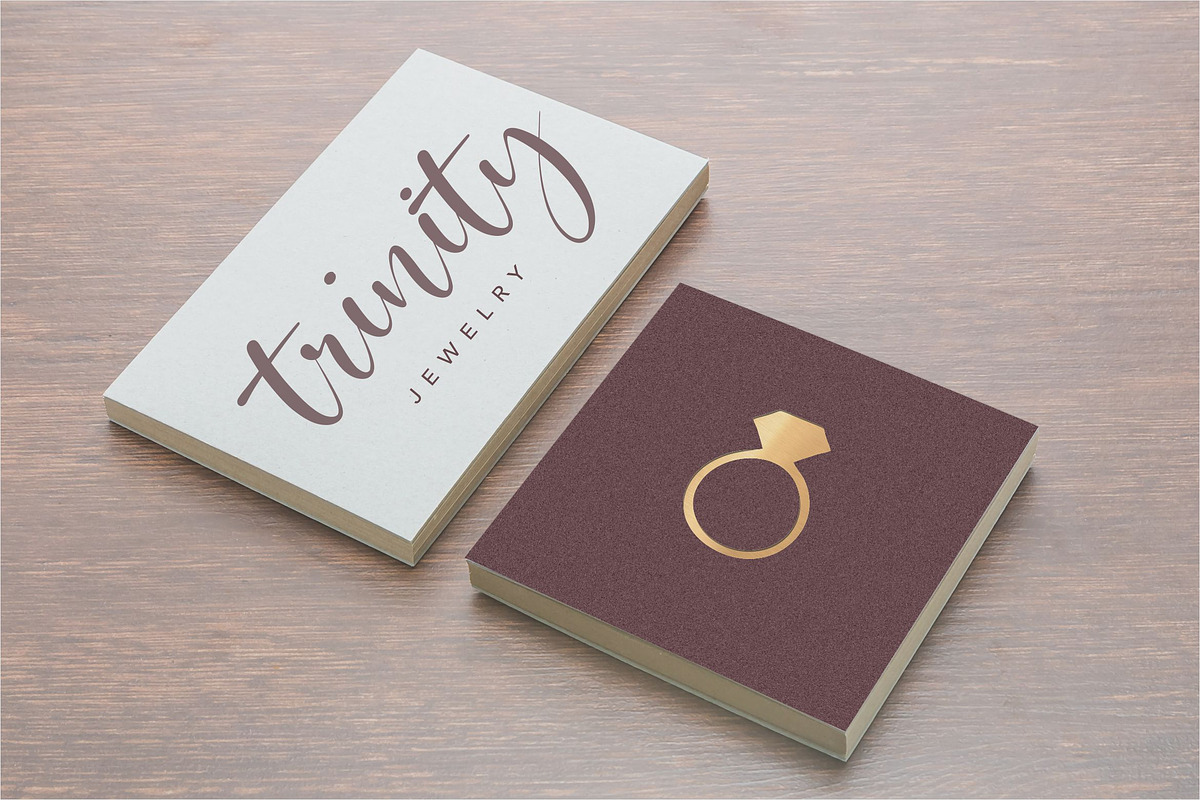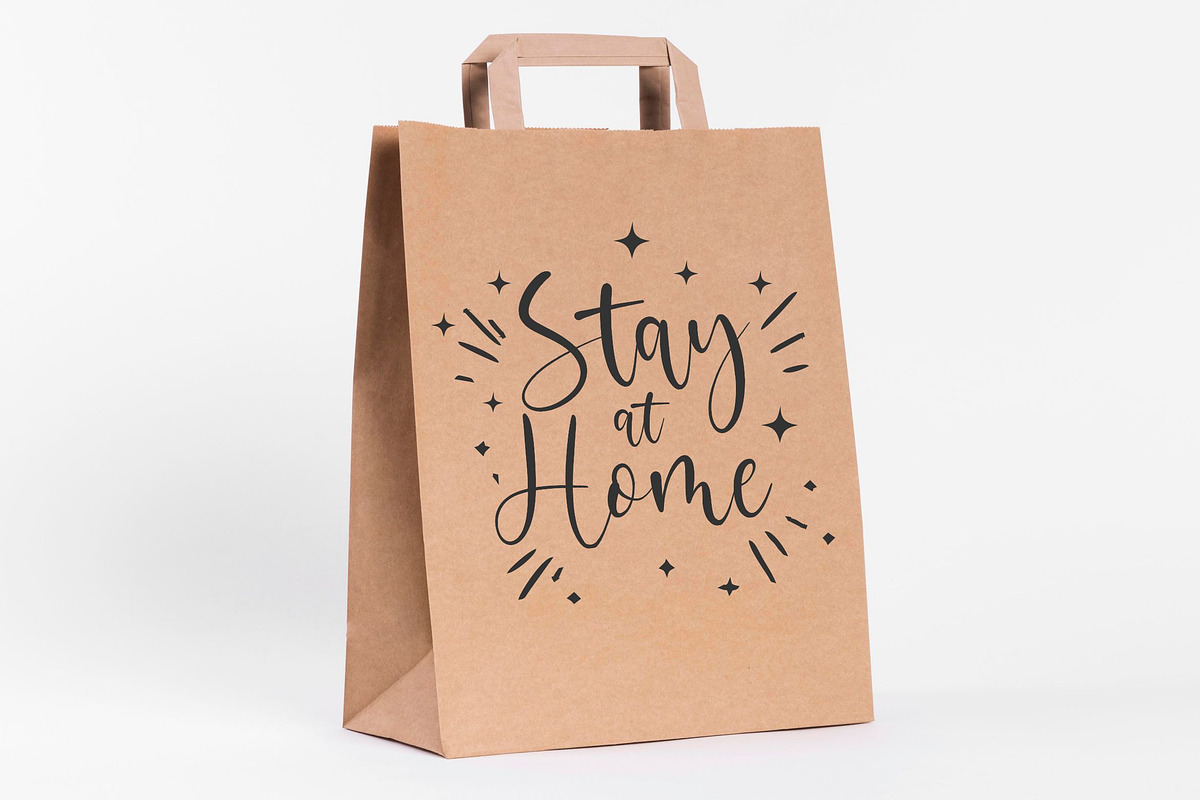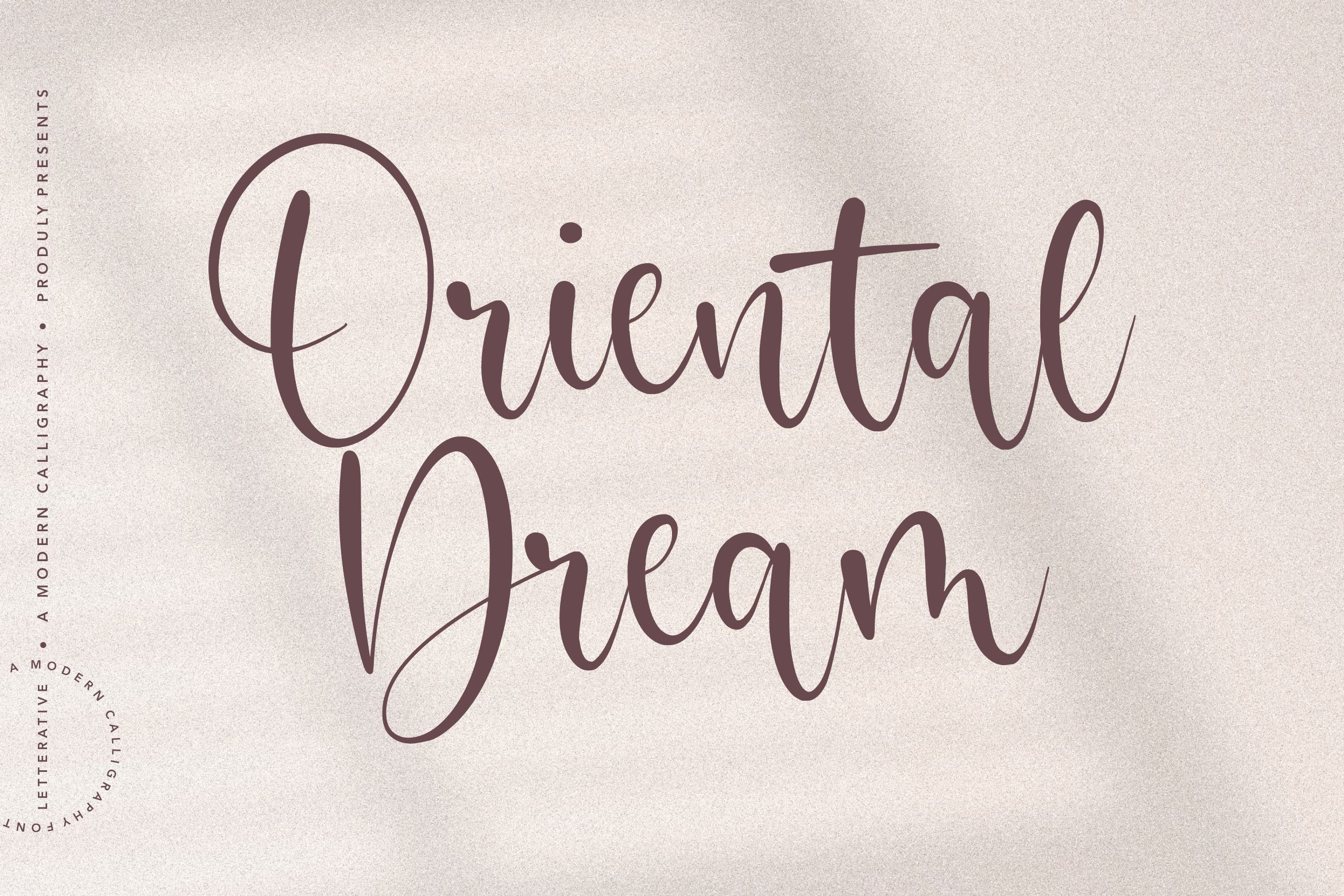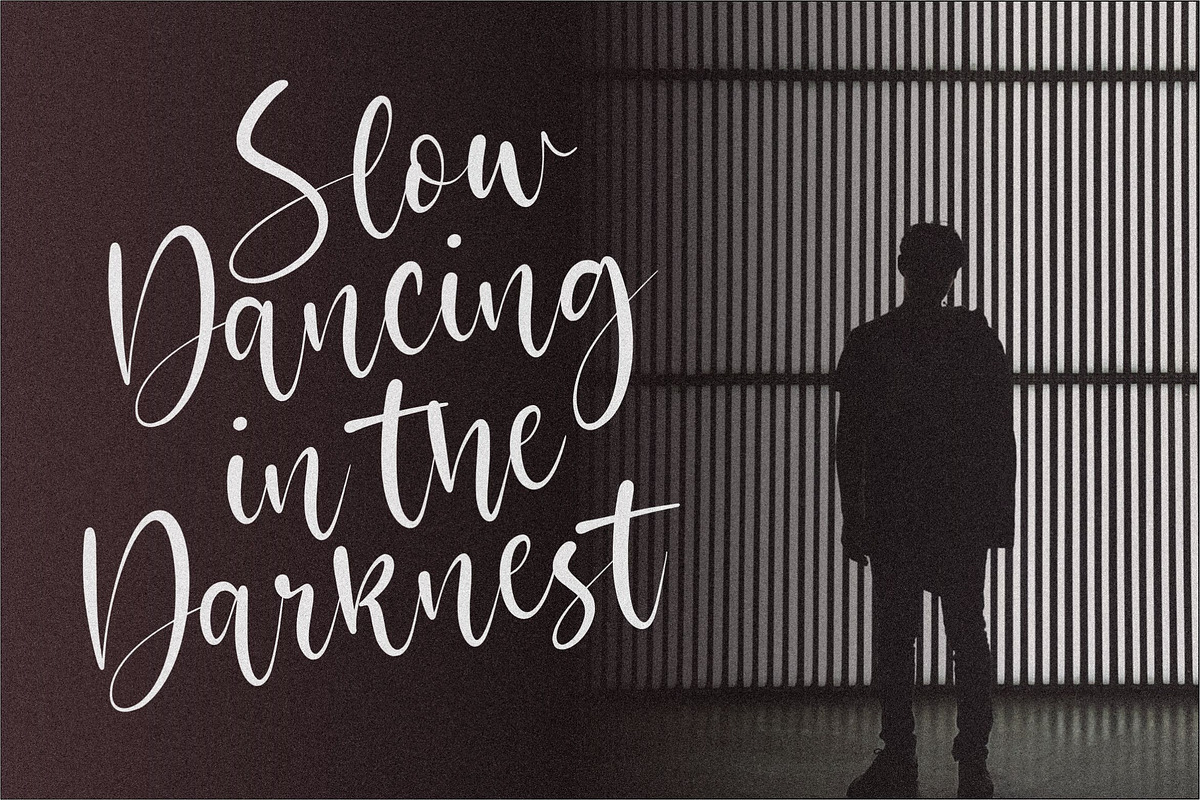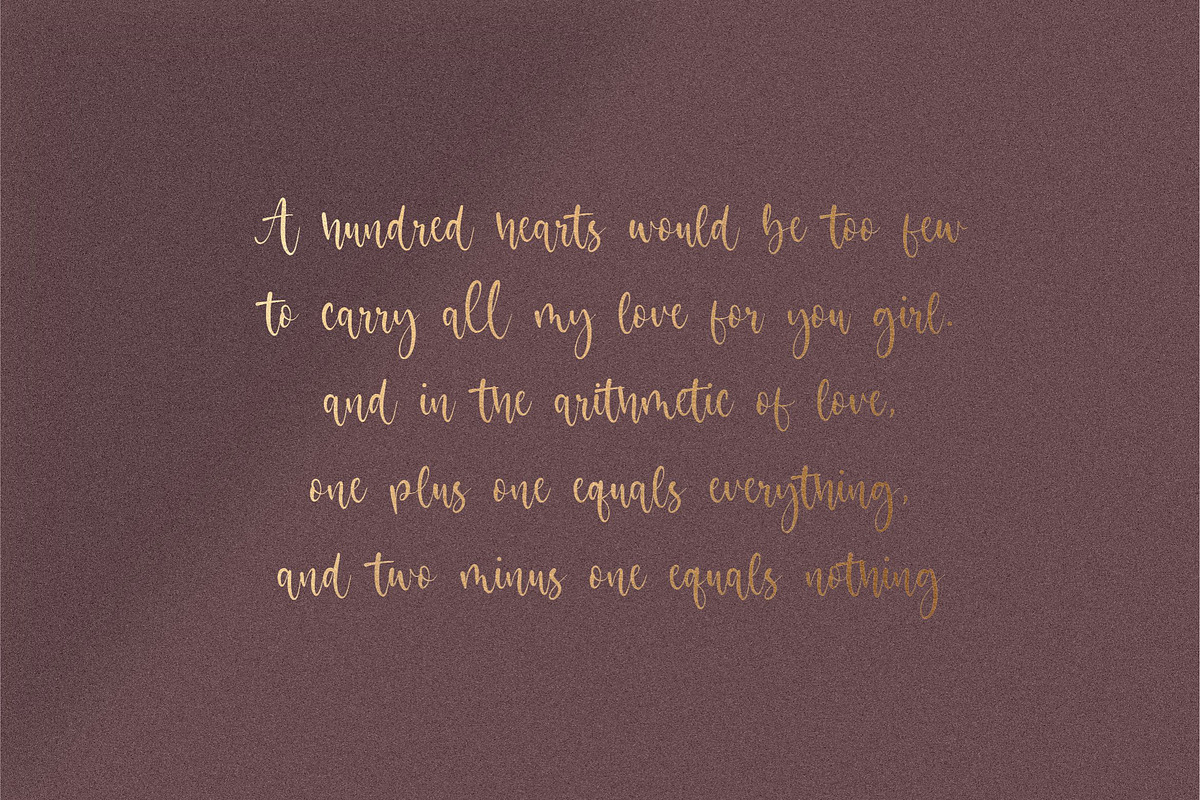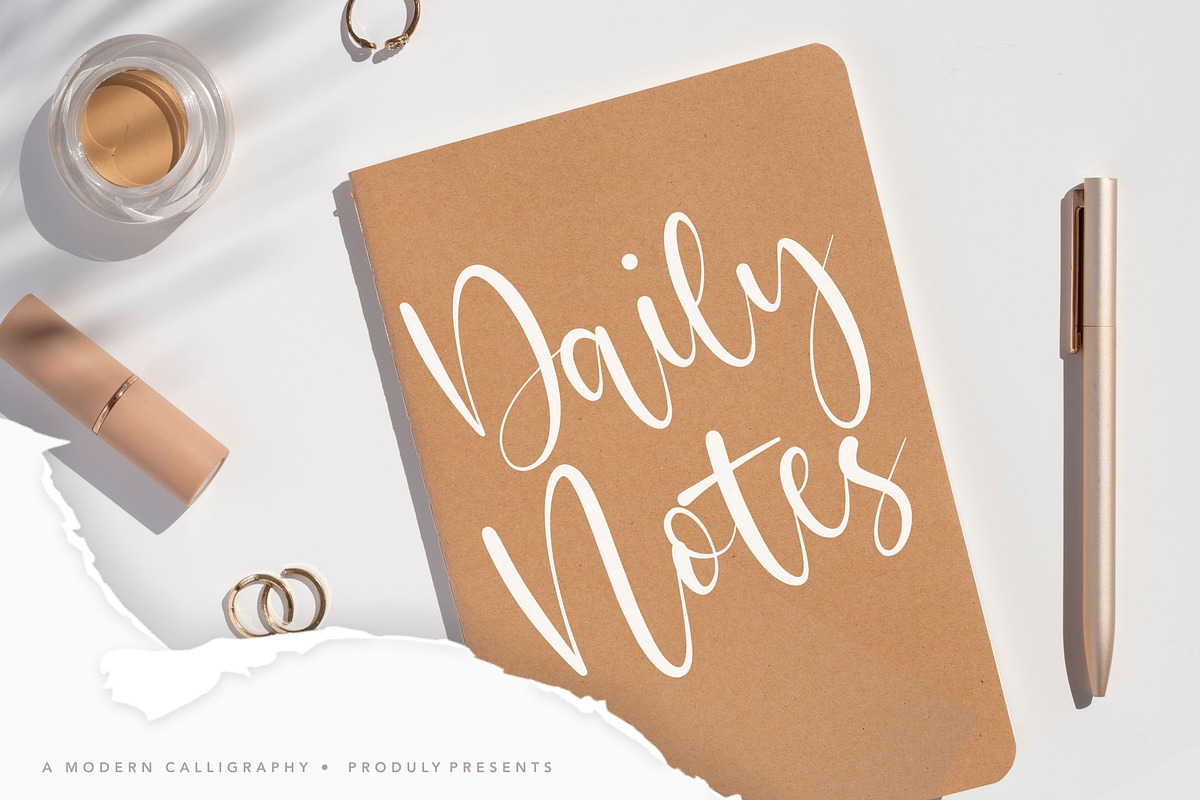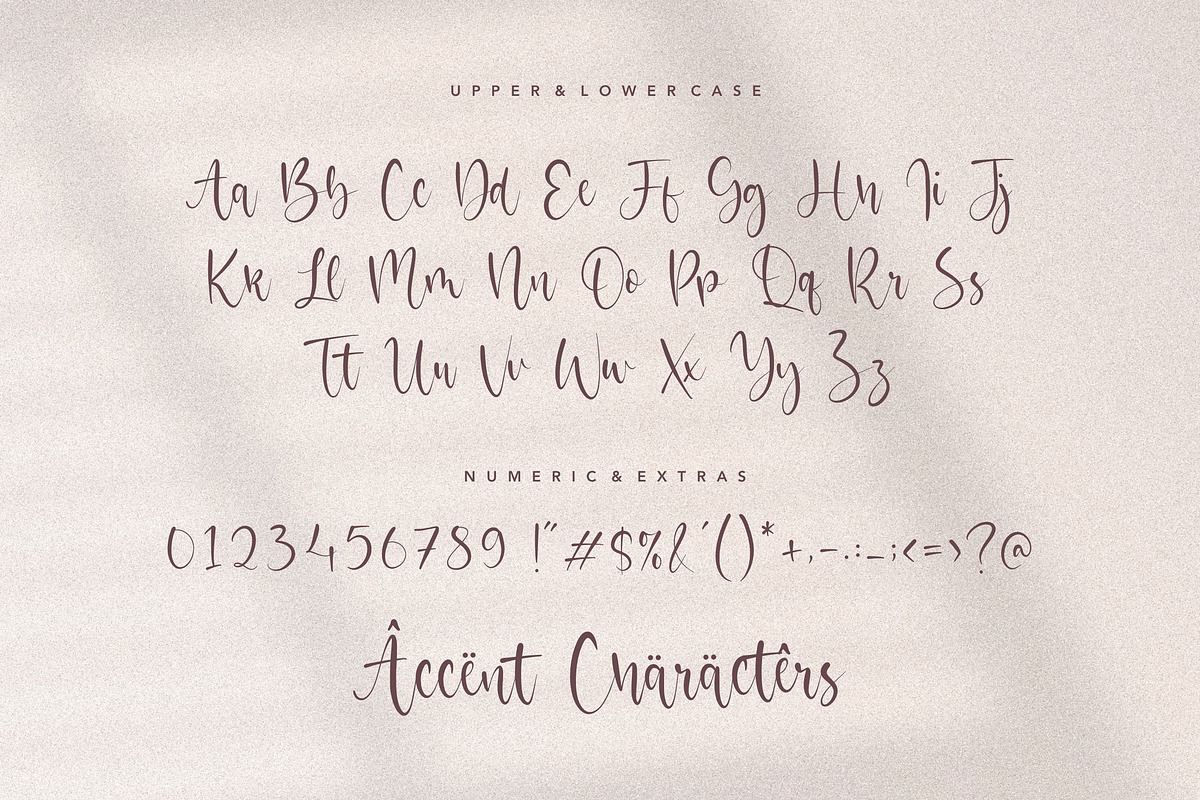
Oriental Dream - Calligraphy Font
Introducing by Letterative Studio
Oriental Dream is a Modern Calligraphy Font
Oriental Dream is a great scrip font. It features a varying baseline, smooth lines, gorgeous glyphs and stunning alternates. Get inspired by its elegant look and create cute designs!